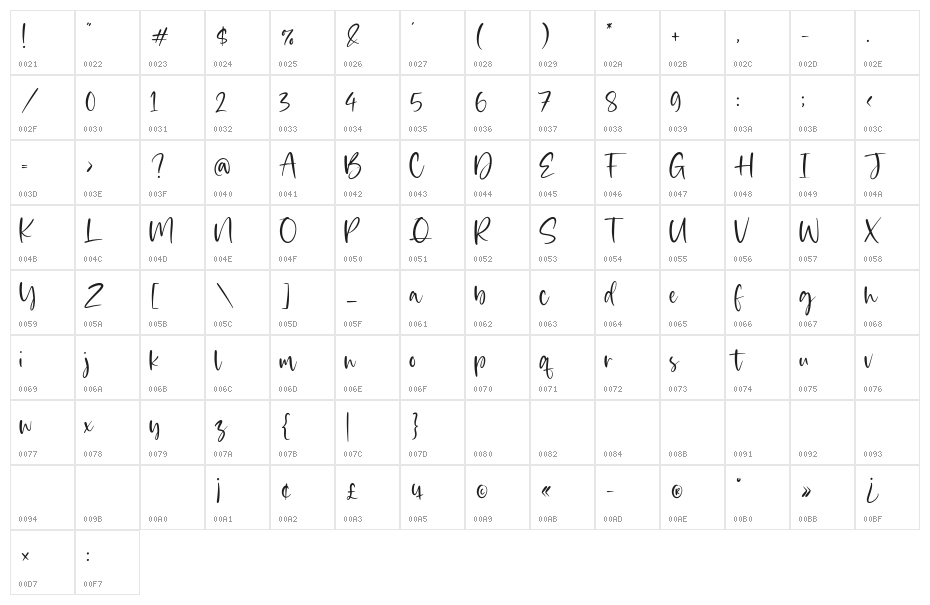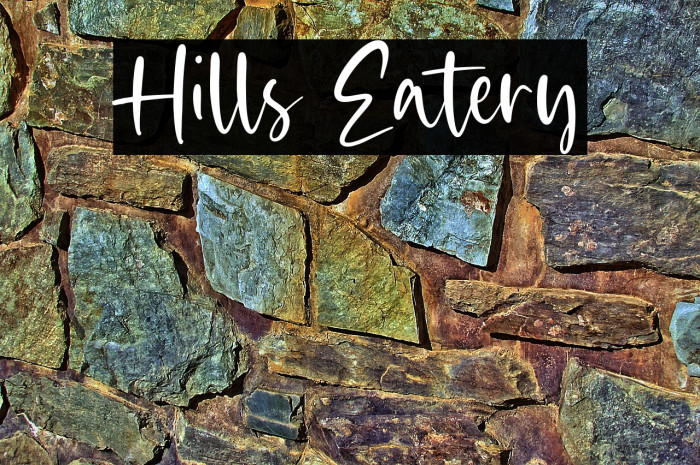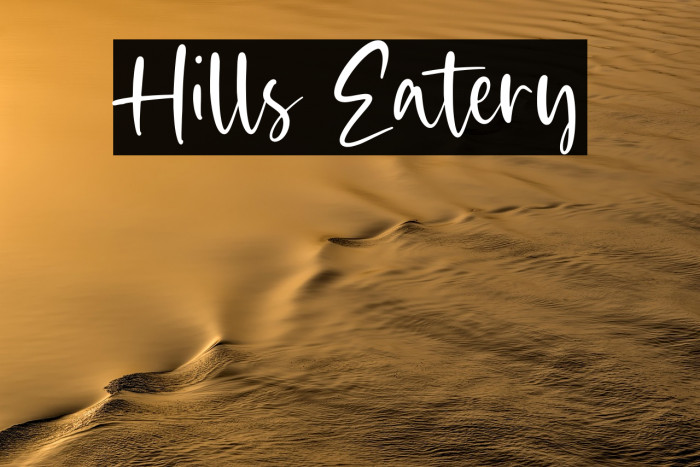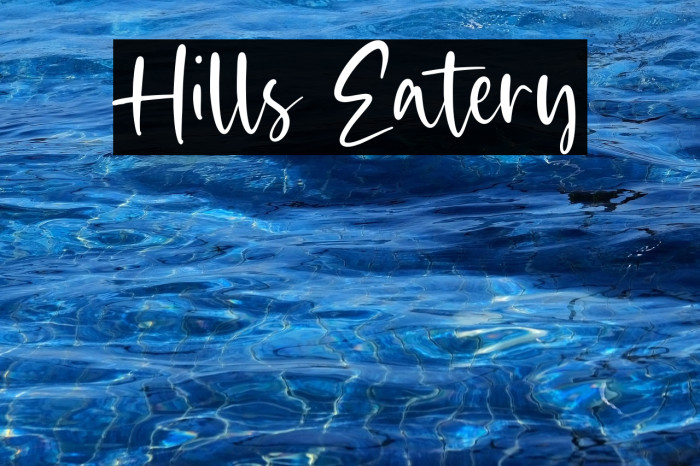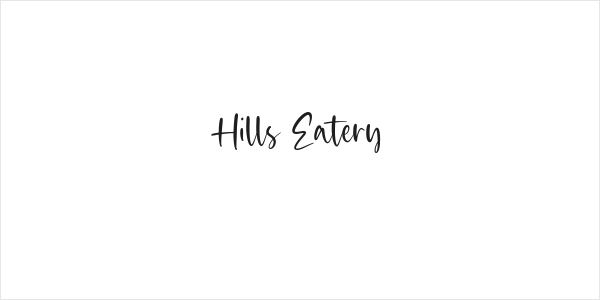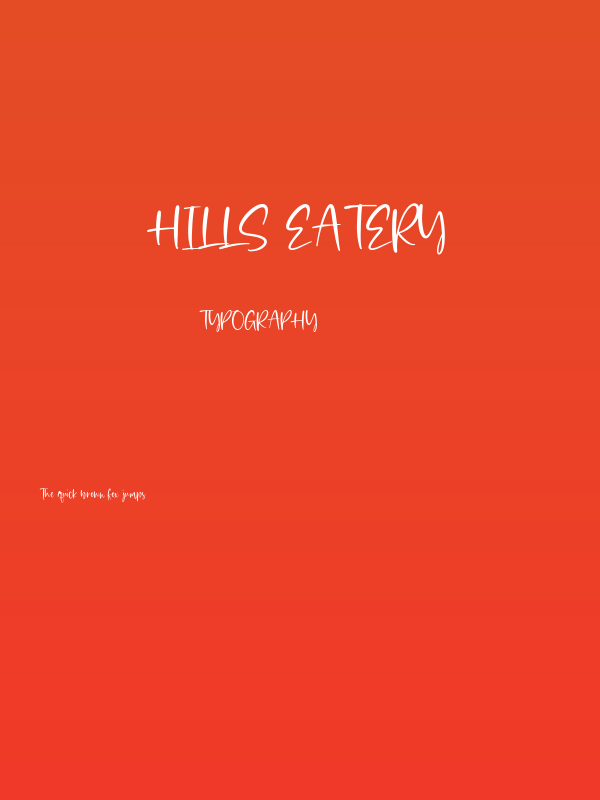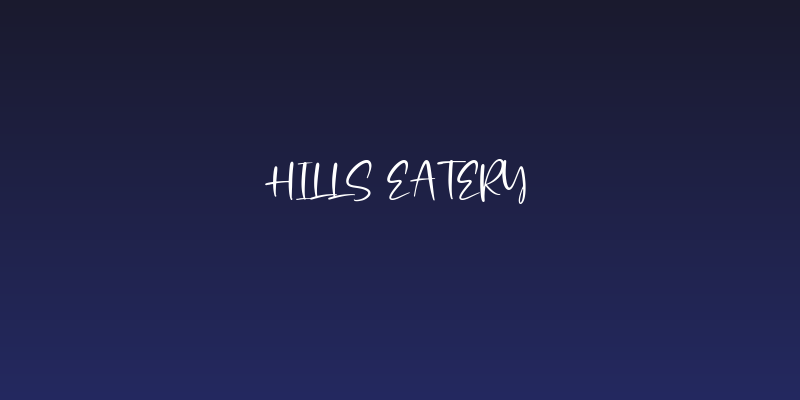
Hills Eatery Font
Hills Eatery Description
A playful and casual handwritten script font with a natural flow and slight irregularities in stroke width.
| Use Case | Logos, Headlines |
| Proposed Projects | Greeting cards, invitations, personal branding. |